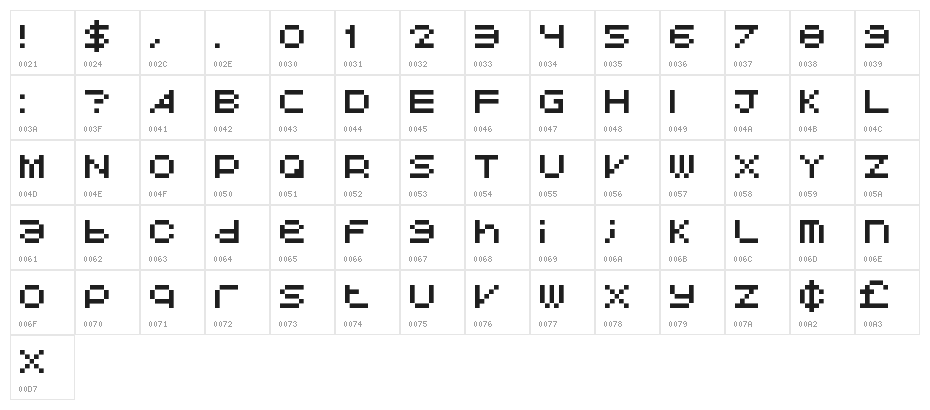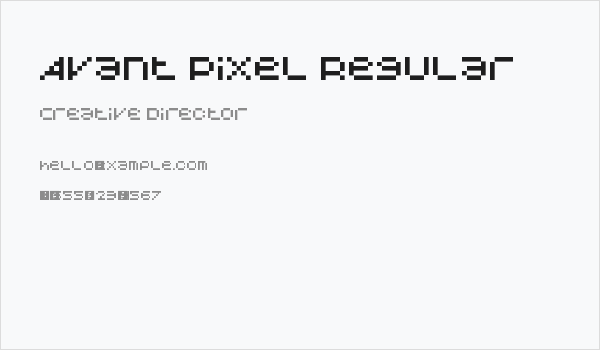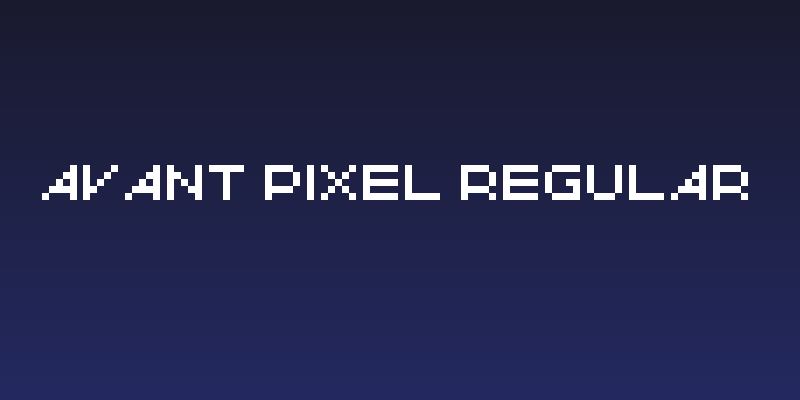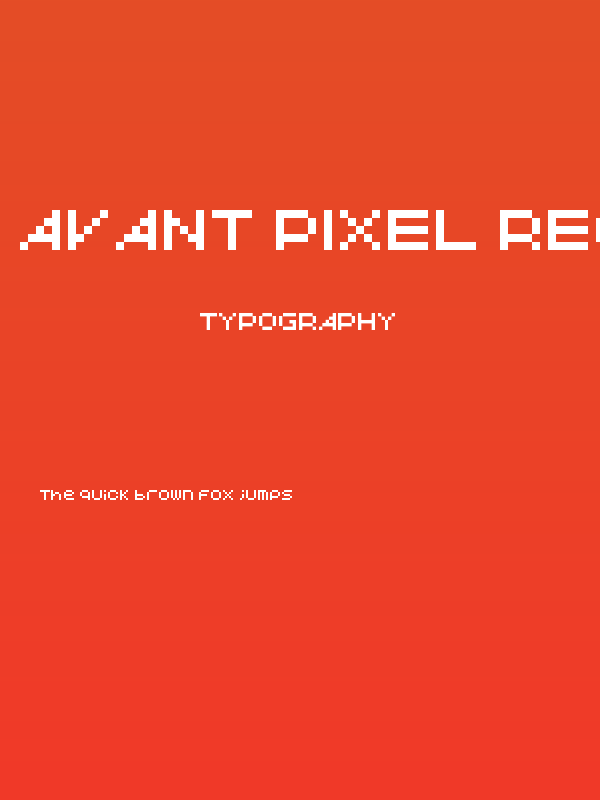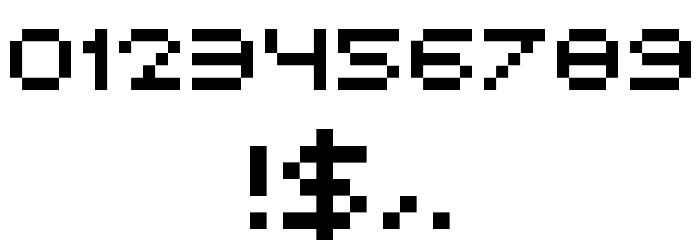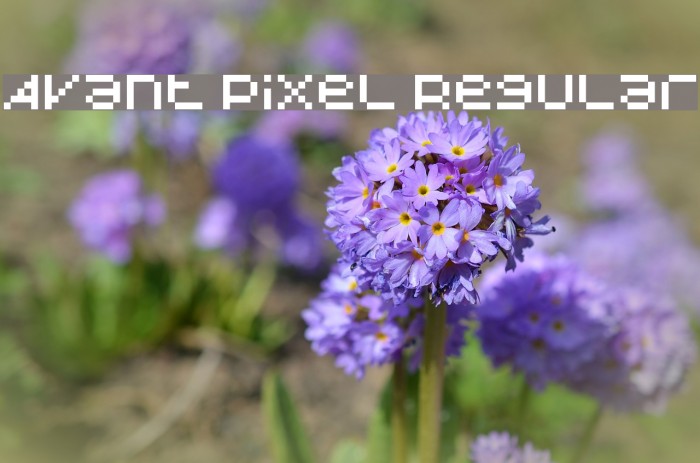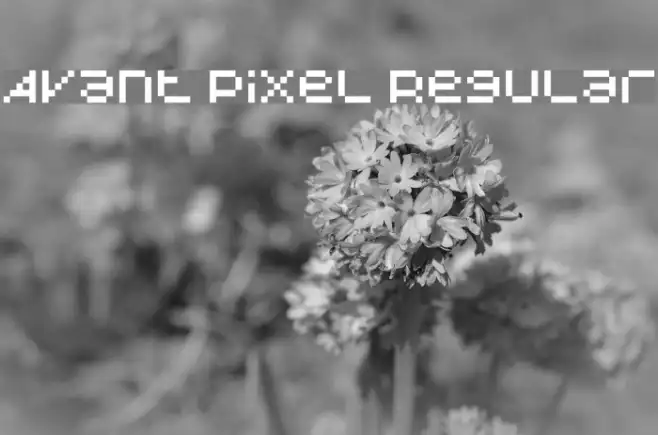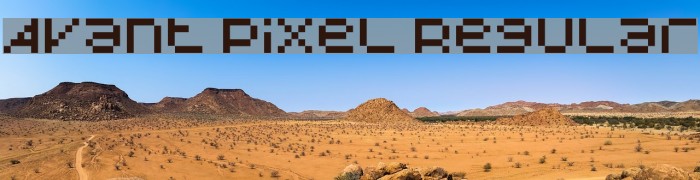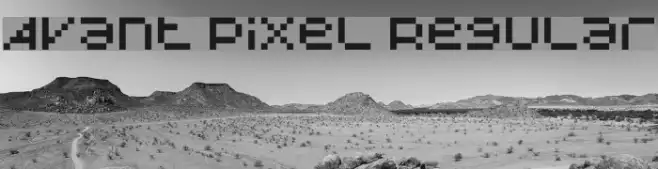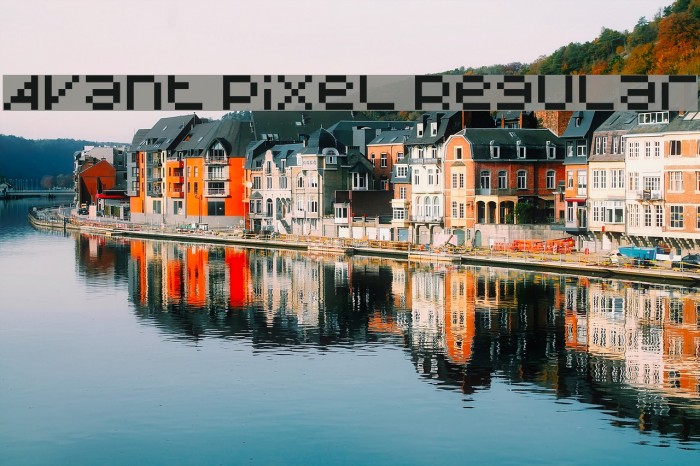
Avant Pixel Regular Font
Avant Pixel Regular Description
This font features a pixelated, blocky design reminiscent of early digital displays and video games. Each character is constructed with a grid-like structure, giving it a distinctly retro and digital aesthetic. The uppercase and lowercase letters maintain a consistent height, contributing to a uniform appearance. The numerals and special characters follow the same pixelated style, ensuring visual coherence across all glyphs. This font's simplicity and geometric form make it highly legible, even at smaller sizes, while its nostalgic charm adds a playful touch to any design.
| Use Case | Headlines, Logos, Digital Art |
| Proposed Projects | Ideal for retro-themed designs, video game graphics, digital art projects, and any creative work that seeks to evoke a sense of nostalgia for early computing. |